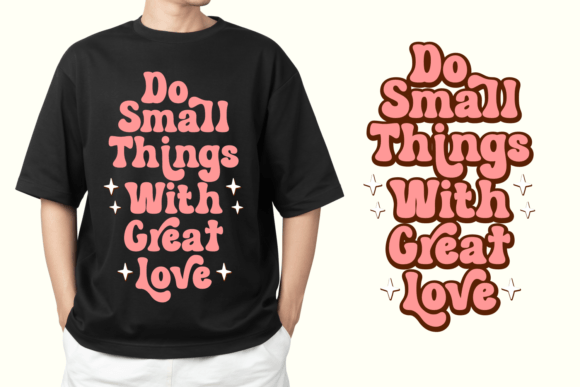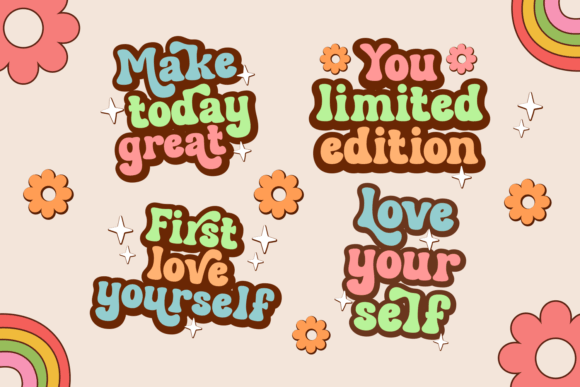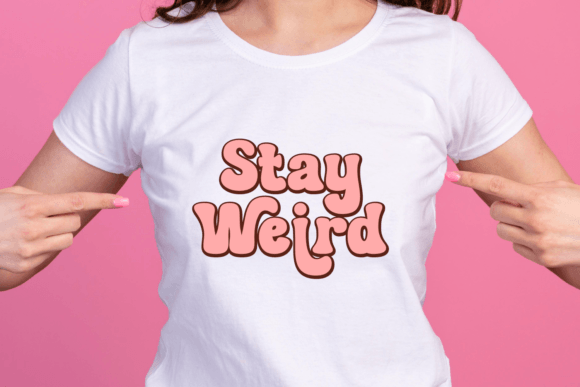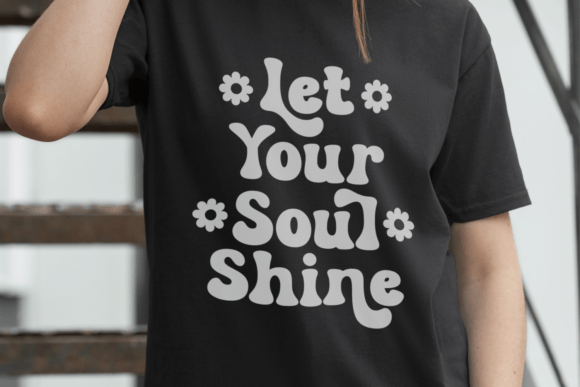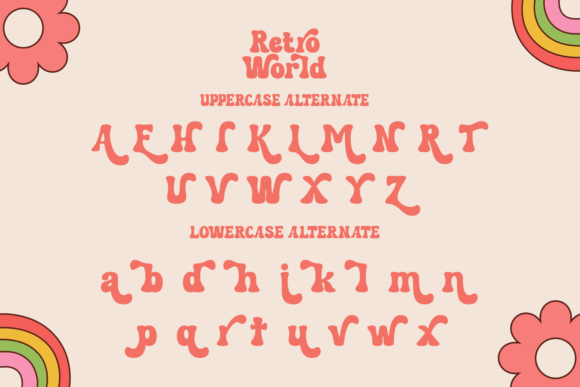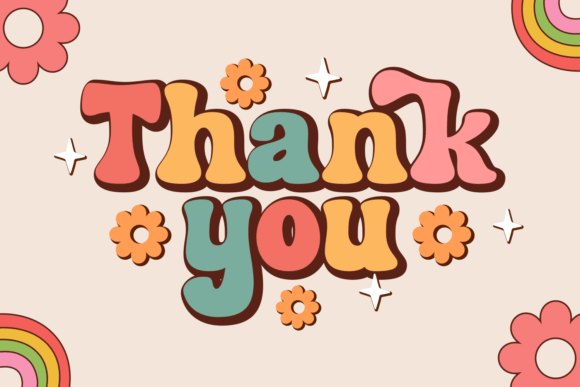
Retro World Font
Unleash the nostalgic charm with Retro World, a vintage-inspired font that conjures the whimsical energy of years gone by. Celebrating retro aesthetics, this uniquely groovy font combines beautiful serifs, playful curves, and a fun twist fit for Kids, making it a must-have for projects seeking a cute and quirky appeal. Its school-themed design echoes the lively vibe of the back-to-school season, while its modern features add an added layer of sophistication.
The Boho charm of Retro World makes it a perfect choice for those seeking a bohemian touch in their designs while its warm color palette is reminiscent of Summer vacations. This font is an excellent choice for those wanting a Hippie-inspired style with its cool, casual, and laid-back vibe. For planners and DIY artists, Retro World’s alternate characters provide a deliciously flexible design tool that can brighten up any project, be it a holiday card or a farmhouse sign.
The font’s bold display characteristics make it stand out, perfect for making a statement. Despite its heart-warming nostalgia, Retro World remains a contemporary font that calls to the modern designer who appreciates the sturdy foundation of traditional typographical design. Cute, pretty, and undeniably cool, the Retro World font is a versatile tool ready to bring heart and playfulness into your creative project. With its perfect blend of vintage charm and modern appeal, it offers a unique way to add character to your design. Whether you’re using it on Procreate or Cricut, Retro World can make your work sing with personality.